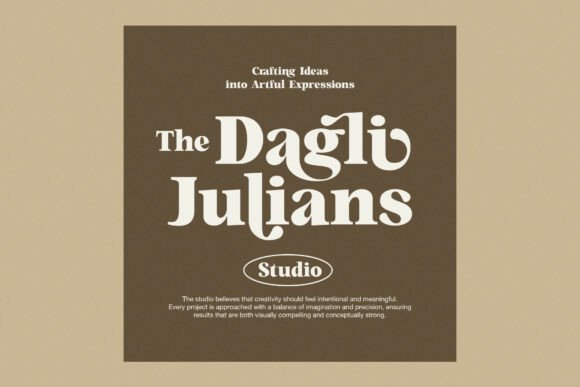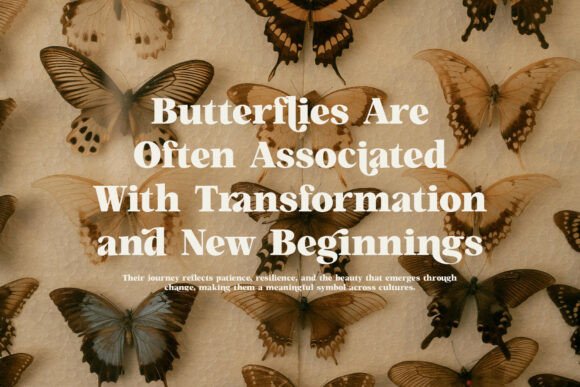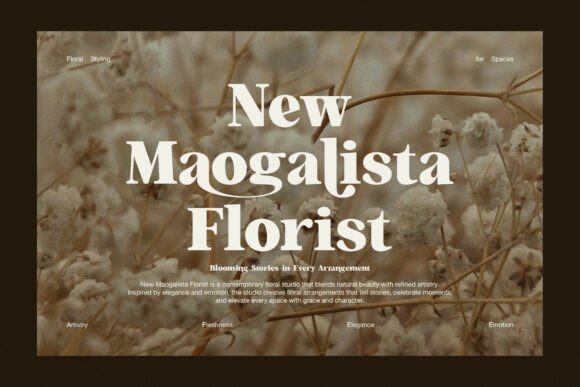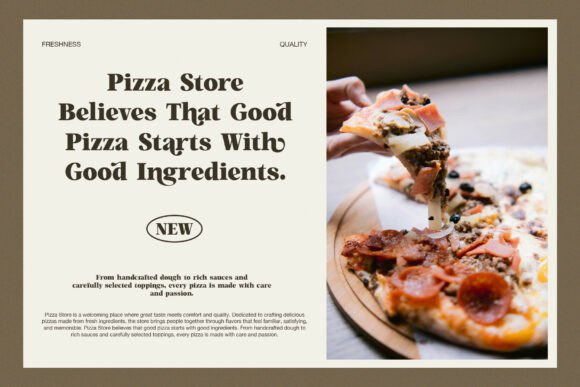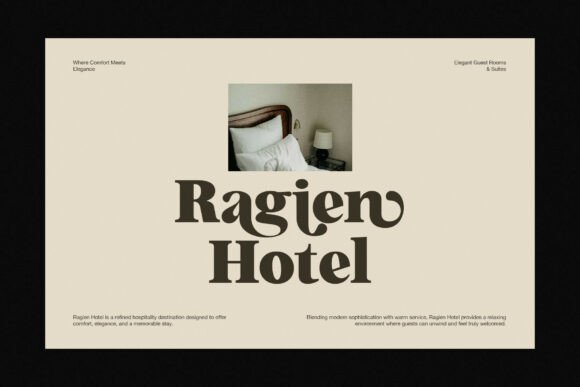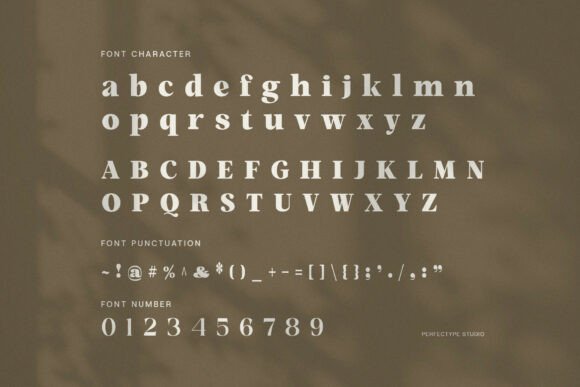
Introduction to Magen Font
Imagine you’re browsing through a design portfolio, and you stumble upon a project that perfectly captures the essence of elegance and sophistication. The typography is flawless, and the font choice is the first thing that catches your eye. That’s the impact of the Magen Font – a modern serif font that exudes confidence, warmth, and refined simplicity. Whether you’re working on a high-end creative project or just need a design resource that elevates your work, Magen Font is a valuable asset for any designer.
With its classic serif foundations, smooth curves, and balanced contrast, the Magen Font is a strong choice for designers who want typography that feels expressive yet controlled. You can download the Magen Font for free and use it for your next design project, and with its transparent background, you can easily integrate it into your design without any distractions.
Key Features of Magen Font
- High-quality, professional font designed for creative projects and designs.
- Comes with a transparent background, allowing for easy customization and integration into various design elements.
- Includes a wide range of glyphs and characters, making it suitable for both Latin and Cyrillic languages.
- Perfect for use in graphic design, digital art, and other creative projects where a unique and stylish font is required.
Honest Review: Magen Font
As a designer, I’m always on the lookout for high-quality design resources to elevate my creative projects. Recently, I had the chance to try out the Magen Font, and I’m excited to share my honest review.
What works well: ✨ I love the elegant and sophisticated feel of the Magen Font. The font is perfect for projects that require a touch of luxury and sophistication. The Magen Font also offers a transparent background, making it easy to use as a design element in creative projects. I also appreciate the fact that it’s free to download, making it an accessible design resource for designers of all levels.
Some limitations: ⚠️ While the Magen Font is a great addition to any designer’s toolkit, it’s not ideal for projects that require a bold or playful font. Additionally, the font may not be suitable for use in small text sizes, as it can become difficult to read.
Overall, I’m impressed with the Magen Font and would recommend it to designers working on creative projects that require a high-quality, elegant font. With its transparent background and free download option, it’s a great design resource to have in your toolkit.
Key features:
- High-quality, elegant font
- Suitable for creative projects
Magen Font
Magen Font is a high-quality, versatile font that can be used for a wide range of creative projects. With its transparent background, it’s perfect for overlaying on images or videos.
Tips for Getting the Most Out of Magen Font
Here are a few tips to get the most out of Magen Font:
- Experiment with different font sizes and styles to find the perfect combination for your design.
- Use the transparent background feature to create unique and eye-catching designs.
- Combine Magen Font with other design elements, such as images and graphics, to create a cohesive look.
Magen Font is perfect for a wide range of creative projects, including:
- Social media graphics and presentations
- Website headers and footers